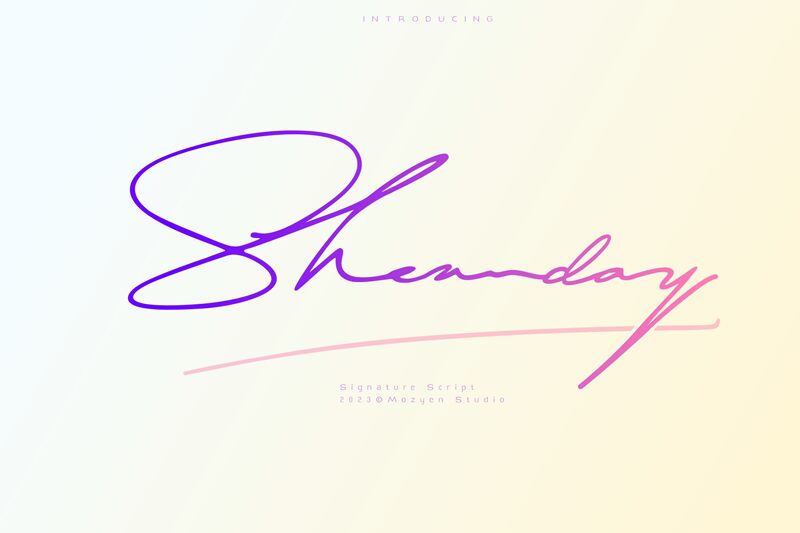
Sheanday font from Mozyen Studio is a light handwritten signature font with an elegant, flowing style. Its sophisticated and expressive lines offer a distinct character that mimics the personal touch of genuine handwriting. With its harmonious and curved design, Sheanday brings forth an authentic and delicate look.